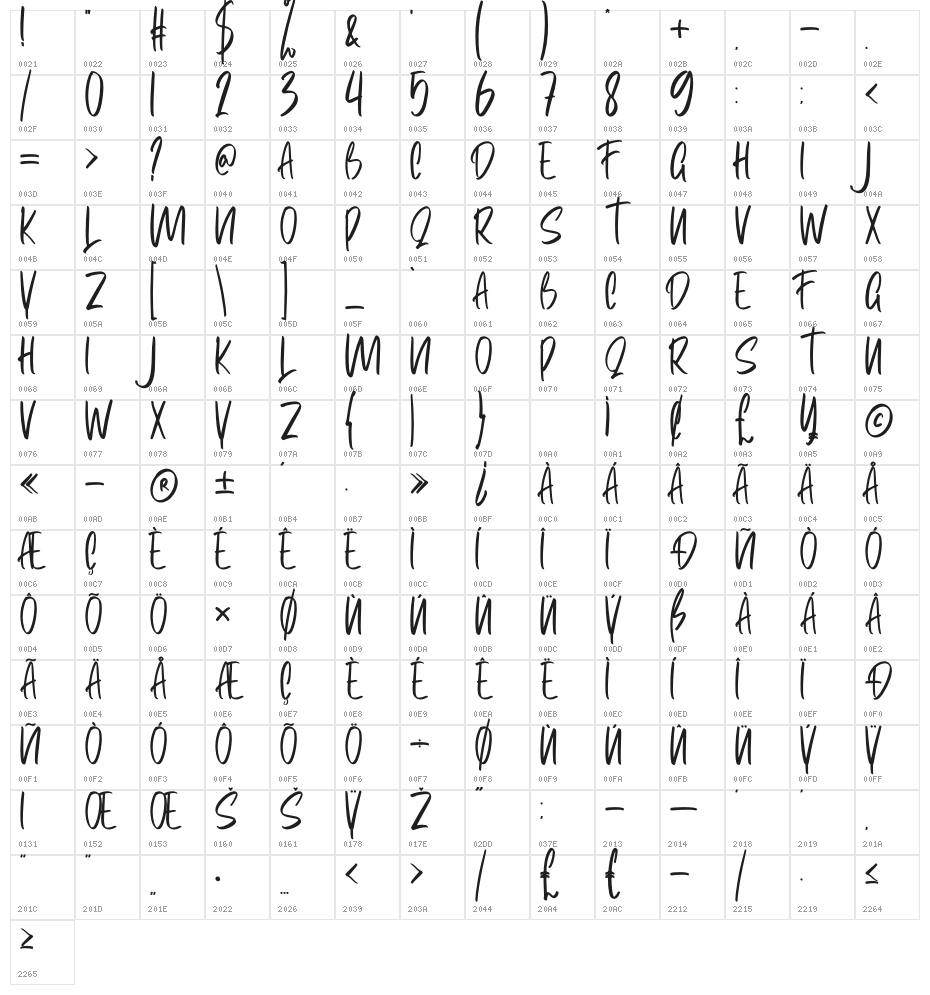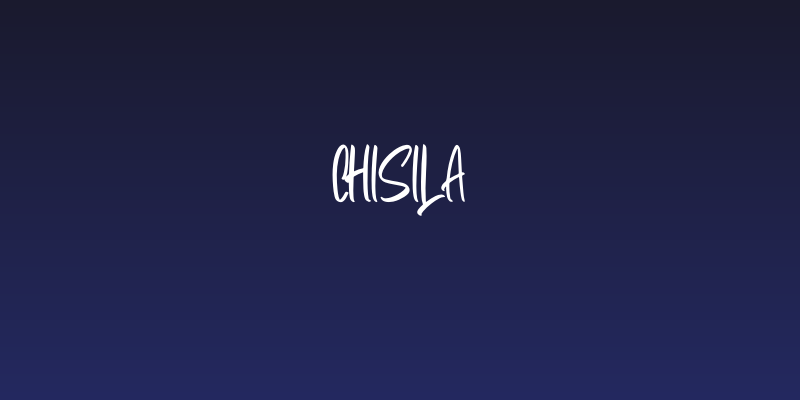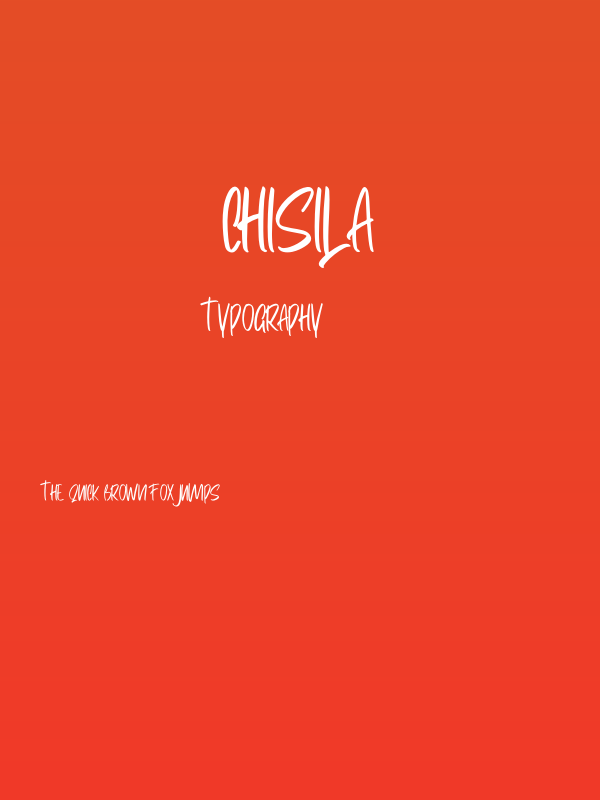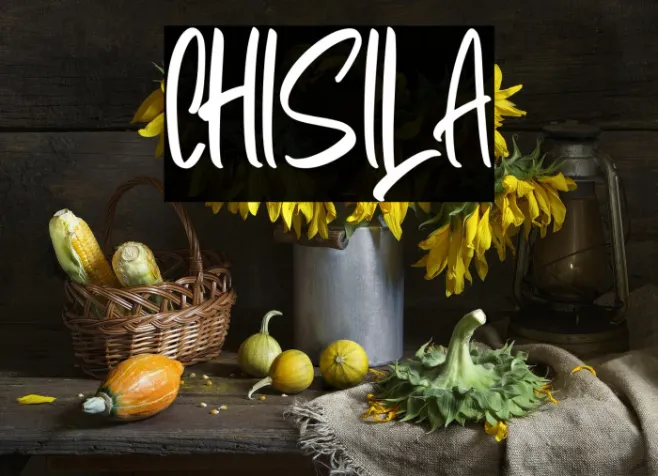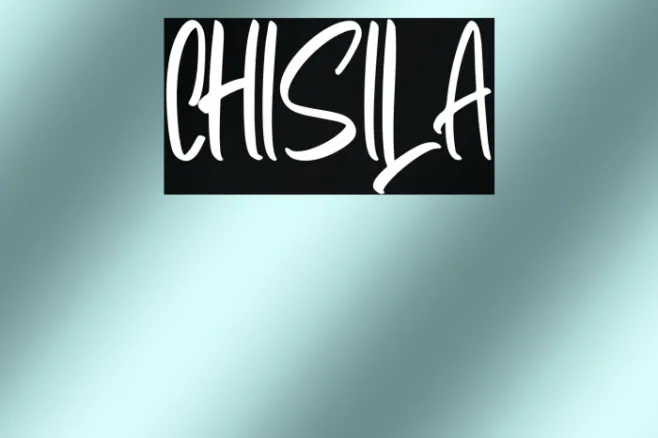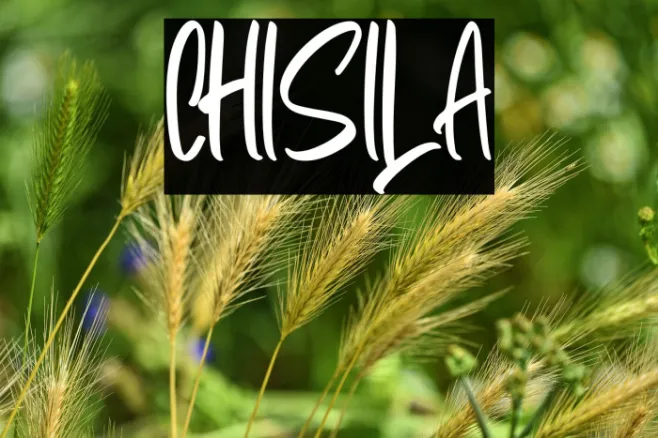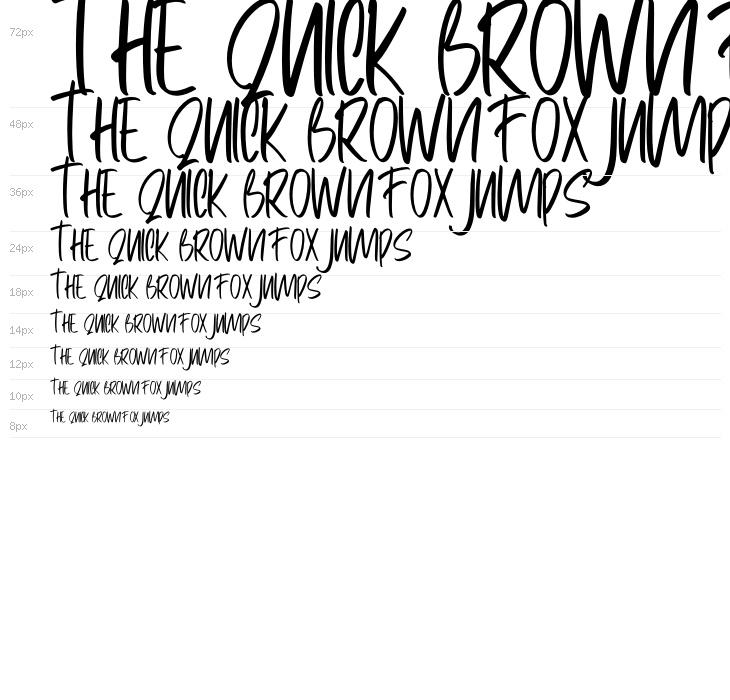
Chisila Font
A bold, handwritten font with a casual and energetic style, featuring tall, narrow letters with a consistent stroke width.
| Overall Style | Modern, Casual |
| Proposed Projects | Posters, branding, social media graphics. |